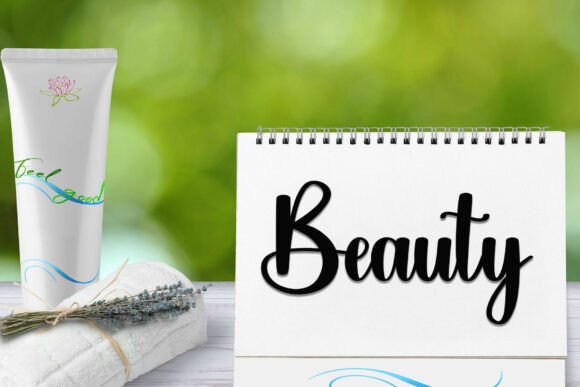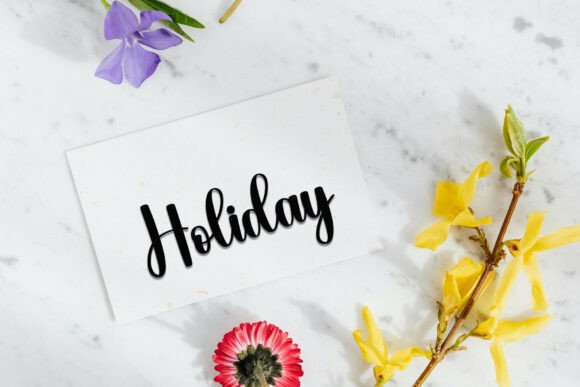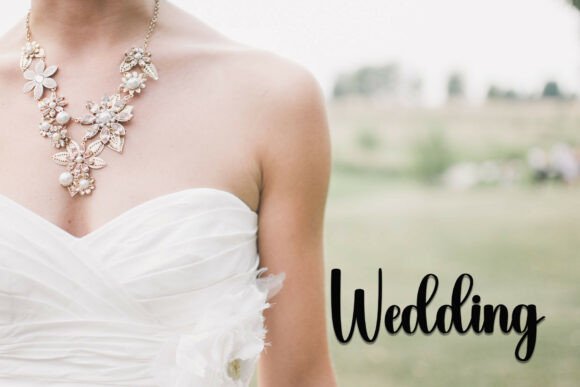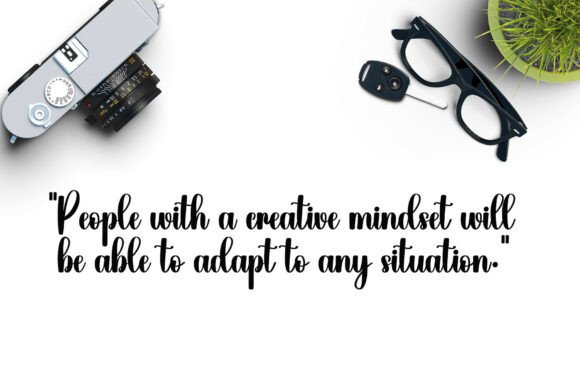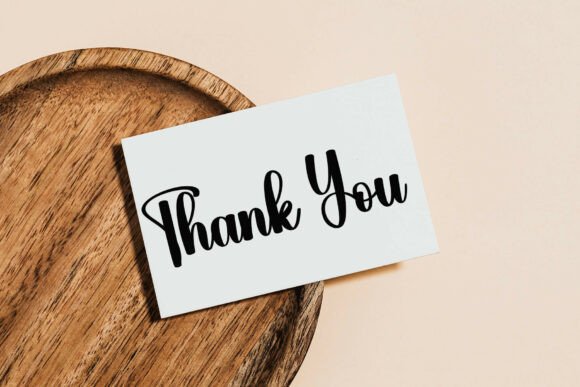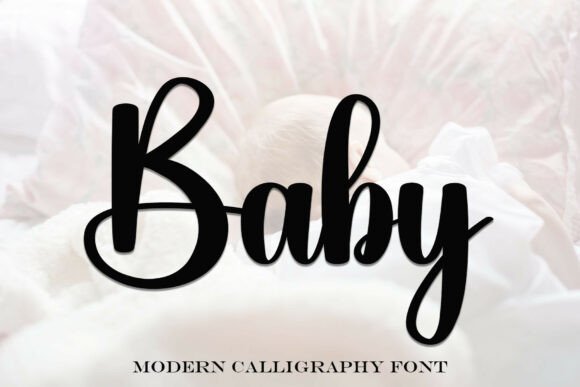
Baby Font: The Sweet and Elegant Choice for Designers
In the world of typography, fonts play a crucial role in conveying the tone and personality of a design. For designers and crafters looking for a font that exudes sweetness, elegance, and romance, Baby Font is an excellent choice. This beautiful, cursive handwritten font is perfect for a variety of design projects, from branding and logos to wedding materials, greeting cards, and more.
The Charm of Baby Font
Baby Font is a gentle and charming typeface that boasts a sweet, cursive script. Its elegant strokes and flowing curves make it an ideal choice for designers who want to add a touch of sophistication and whimsy to their work. This font is versatile and can be used for a range of design ideas, from feminine and romantic to playful and modern.
One of the best things about Baby Font is its versatility. It can be used for a wide range of design projects, including:
- Branding: Create a lasting impression with your brand’s logo or identity using Baby Font. Its elegant and sophisticated feel makes it perfect for businesses that want to convey a sense of luxury, beauty, or high-end quality.
- Wedding Design: Add a touch of romance and whimsy to your wedding designs, including invitations, programs, and decorations. Baby Font’s cursive script and gentle feel make it an ideal choice for wedding materials.
- Greeting Cards: Create beautiful and heartfelt greeting cards for special occasions, such as birthdays, anniversaries, and holidays. Baby Font’s elegant and cursive feel makes it perfect for expressing your sentiments.
- Fashion and Lookbook: Use Baby Font to add a touch of elegance and sophistication to your fashion designs, lookbooks, or marketing materials. Its modern and stylish feel makes it perfect for fashion brands that want to convey a sense of luxury and high-end quality.
- Marketing Promotion: Create eye-catching marketing materials, such as brochures, flyers, or social media graphics, using Baby Font. Its elegant and cursive feel makes it perfect for businesses that want to convey a sense of professionalism and sophistication.
Why Choose Baby Font?
So, why should designers and crafters choose Baby Font for their projects? Here are just a few reasons:
- Elegant and Sophisticated: Baby Font’s cursive script and gentle feel make it perfect for designers who want to add a touch of elegance and sophistication to their work.
- Versatile: Baby Font can be used for a wide range of design projects, from branding and logos to wedding materials, greeting cards, and more.
- Easy to Read: Despite its elegant and cursive feel, Baby Font is easy to read, making it perfect for body text or headlines.
- Unique and Creative: Baby Font’s unique and creative design makes it stand out from other fonts, ensuring that your designs will be noticed and remembered.
Tips for Using Baby Font
To get the most out of Baby Font, here are a few tips to keep in mind:
- Pair with Other Fonts: Experiment with pairing Baby Font with other fonts to create a unique and creative contrast.
- Use for Headlines and Titles: Use Baby Font for headlines and titles to add a touch of elegance and sophistication to your designs.
- Adjust Font Size and Style: Experiment with different font sizes and styles to create visual interest and hierarchy in your designs.
In conclusion, Baby Font is a beautiful and elegant handwritten font that is perfect for designers and crafters looking to add a touch of sweetness and romance to their work. Its versatility, elegance, and sophistication make it an ideal choice for a wide range of design projects, from branding and logos to wedding materials, greeting cards, and more. With its easy-to-read design and unique creative feel, Baby Font is sure to become a favorite in your design arsenal.